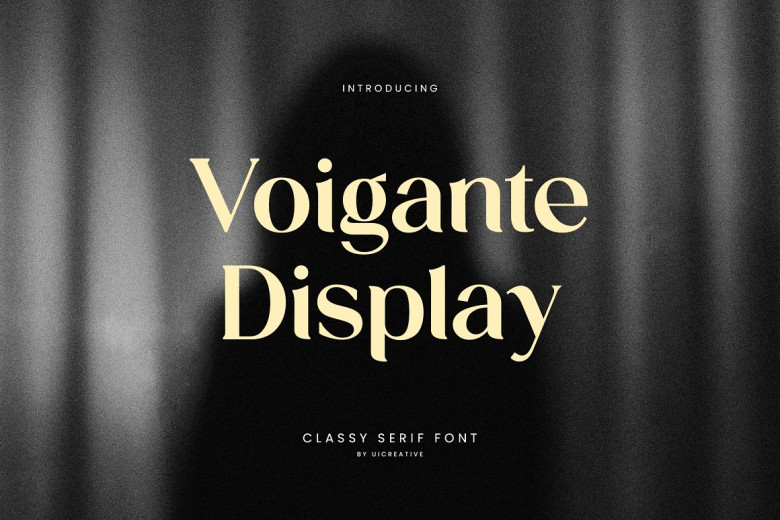
Voigante Display Font
Voigante Display is a modern classic font. Voigante, is serif font that feels both beautiful and modern. This font is ideally suited for use in all sorts of projects such as signature, stationery, logo, wedding invitations typography quotes on the internet-headlines or body copy; blog titles in magazines and book covers where headings are often large relative to body text clothing branding websites packaging design (including perfume bottles). Fashion-related editorial design has both male and female qualities.
Voigante Display Serif Font